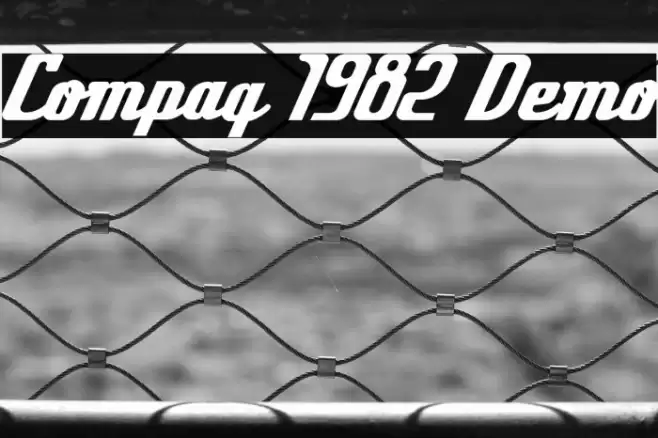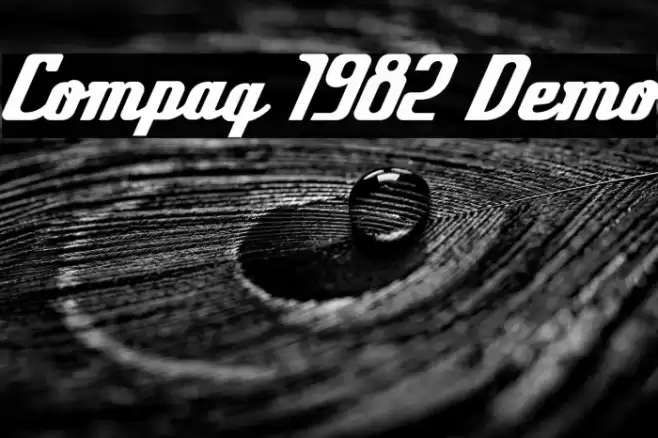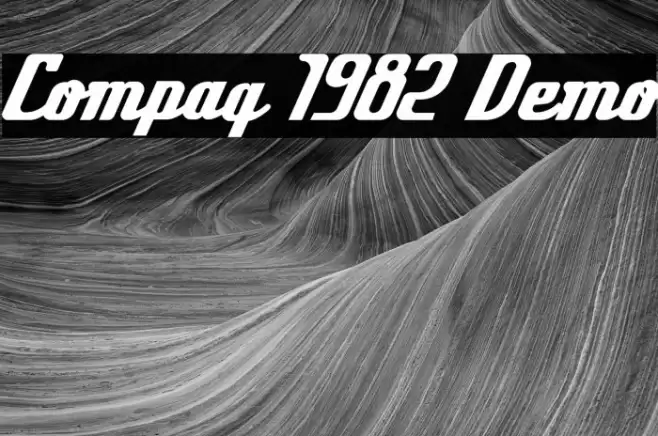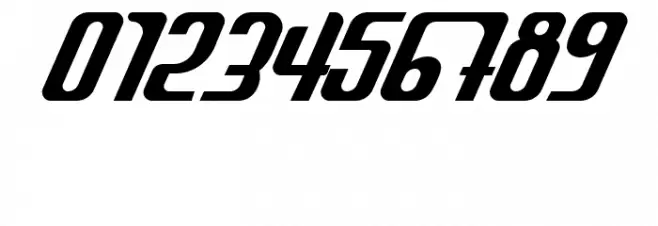
Compaq 1982 Demo Font
Compaq 1982 Demo Description
This font features a bold, italicized style with a strong, dynamic presence. The characters are slanted, giving a sense of movement and speed, reminiscent of retro or vintage aesthetics. The strokes are thick and consistent, providing a uniform appearance across all characters. The uppercase letters are particularly striking, with sharp angles and a slightly condensed form, while the lowercase letters maintain a similar style but with more fluidity. The numbers are bold and clear, matching the overall style of the alphabet. This font is ideal for creating a bold statement or adding a touch of nostalgia to any design project.
A bold, italicized font with a retro, dynamic style from Uncategorized fonts.
- Proposed Projects: Ideal for vintage-themed designs, logos, posters, and branding that require a bold statement.
- Overall Style: Vintage